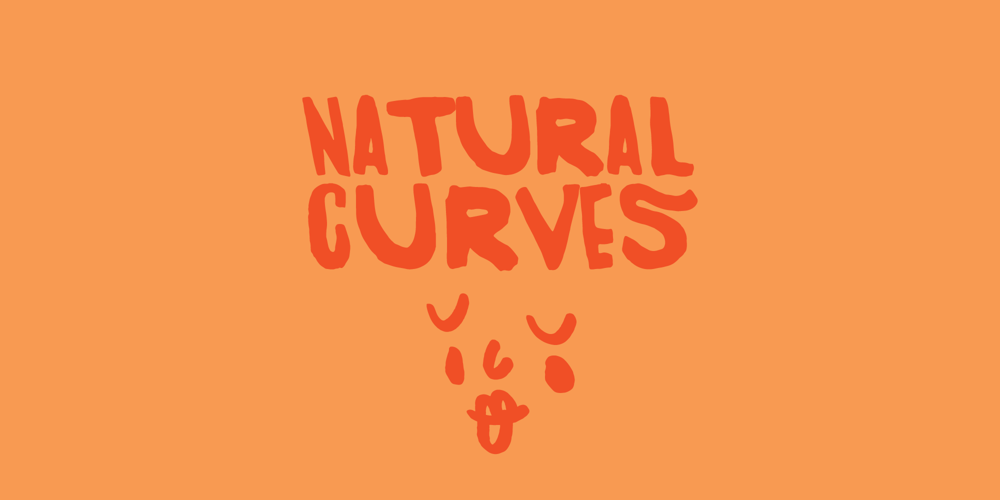
Natural Curves OG Font Family was designed by Evelyn Treacy and published by Kingpin Designs. Natural Curves OG contains 1 styles and family package options. ‘Natural Curves OG’ is a friendly typeface that works seamlessly without any trimmings. It’s perfect for giving any work a hand-drawn look and feel. The typeface is balanced so the eye doesn’t move straight to any singular letter, which means that creating a hierarchy with other elements in your design is simple. Colour blocking to support brand identity is easy with this typeface, and it adds character simply and authentically. This typeface was created for my own brand’s identity, and it’s been great to add splashes of art in the form of type all over my website and collateral.